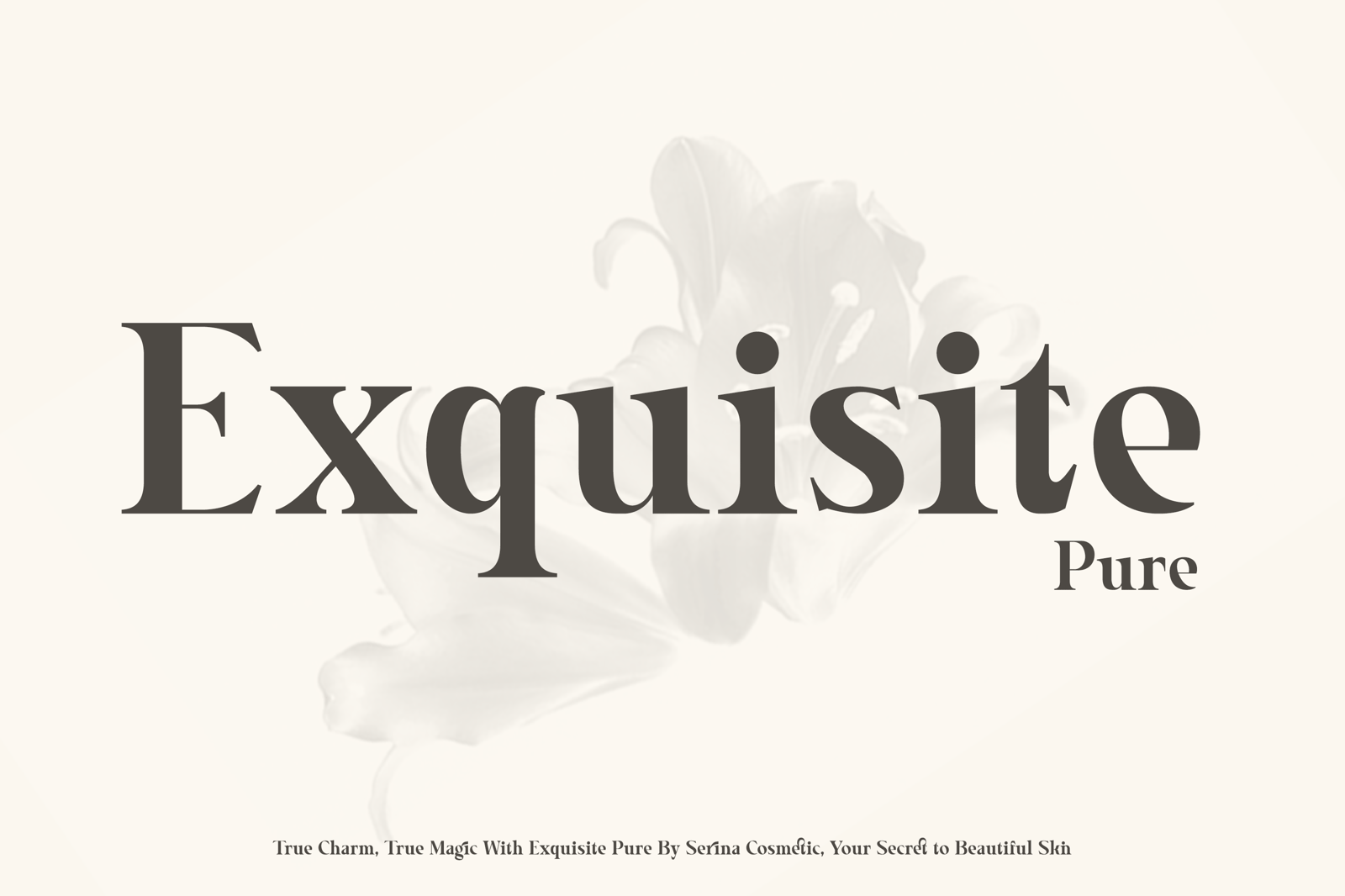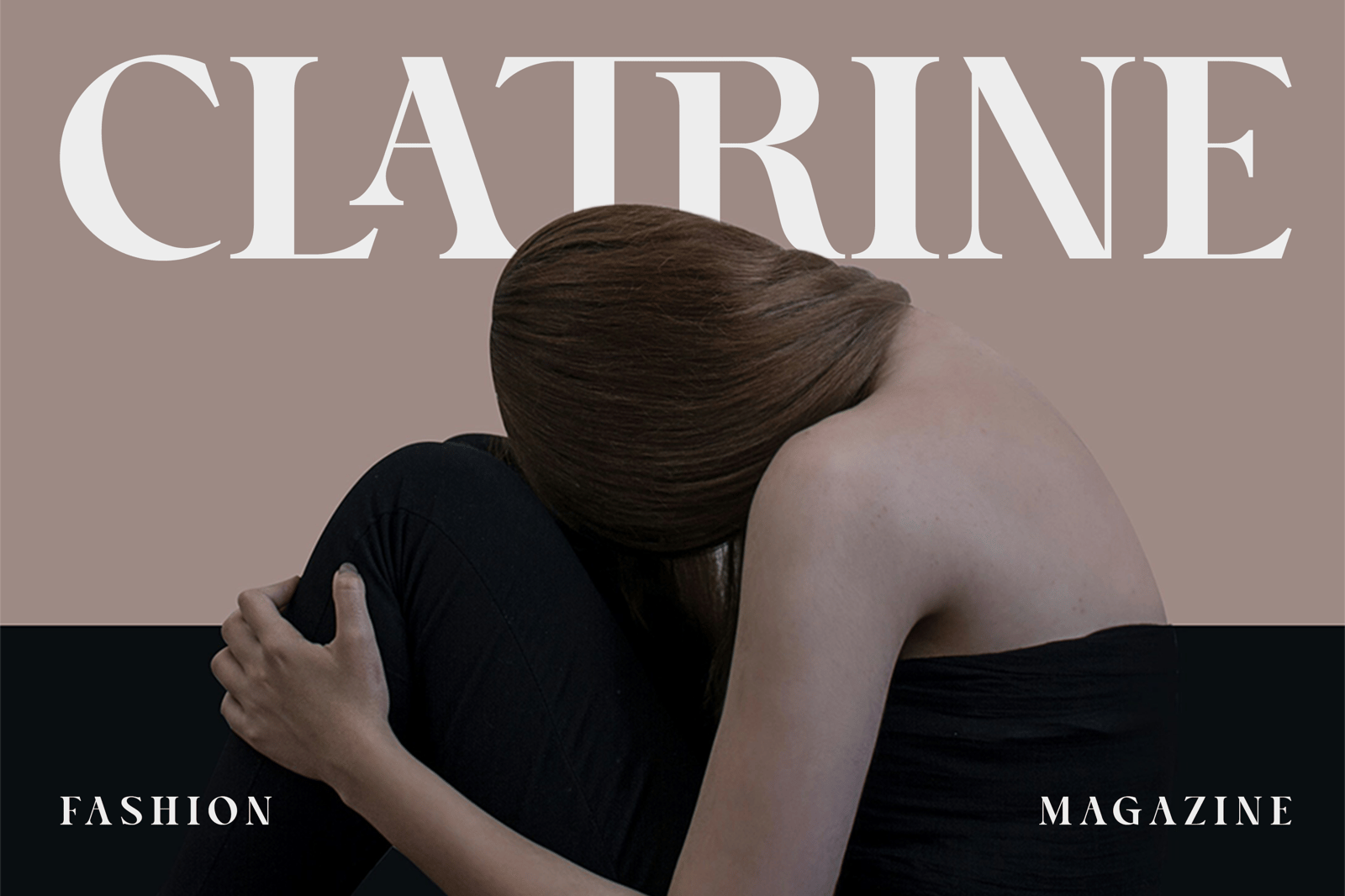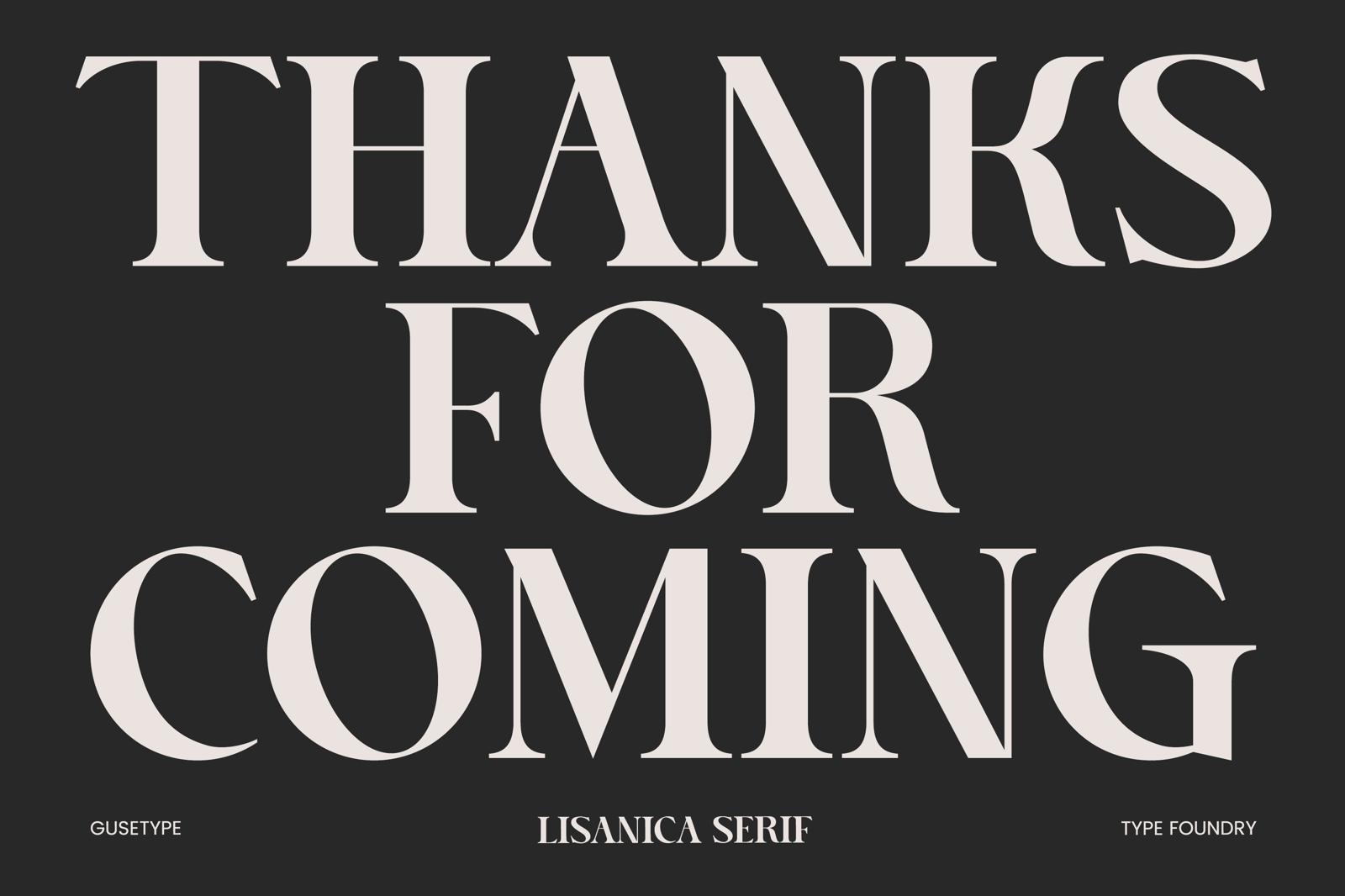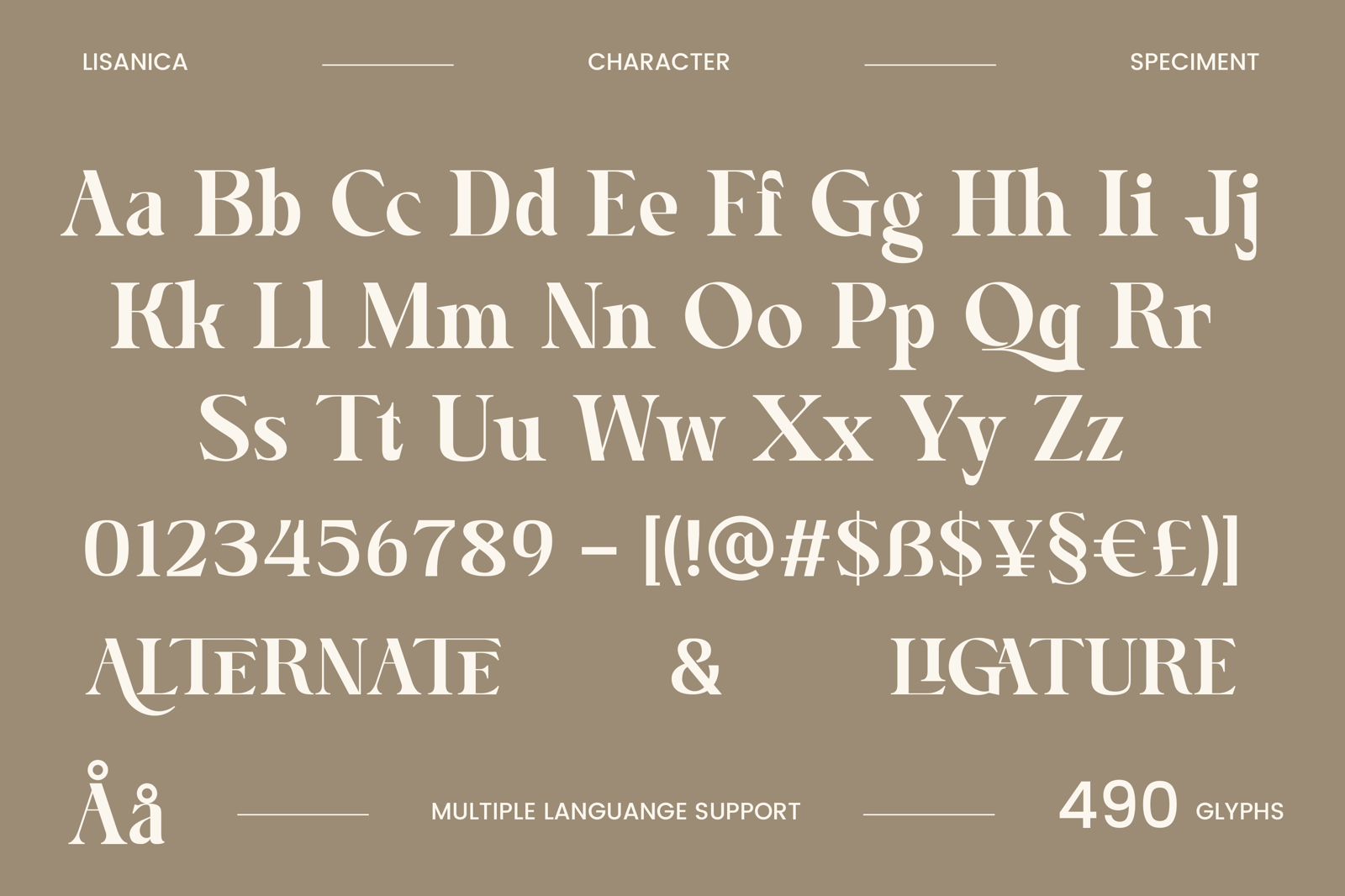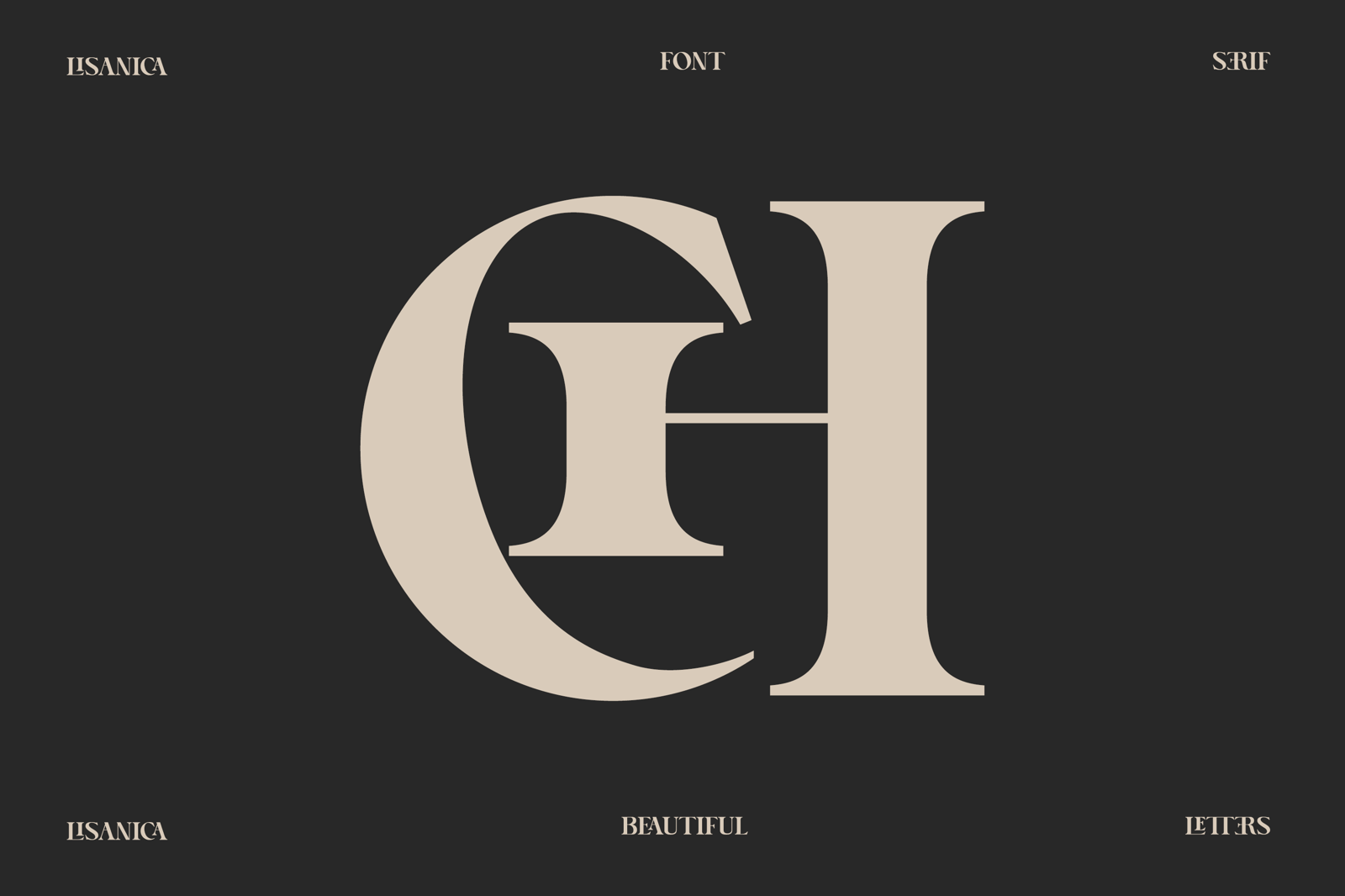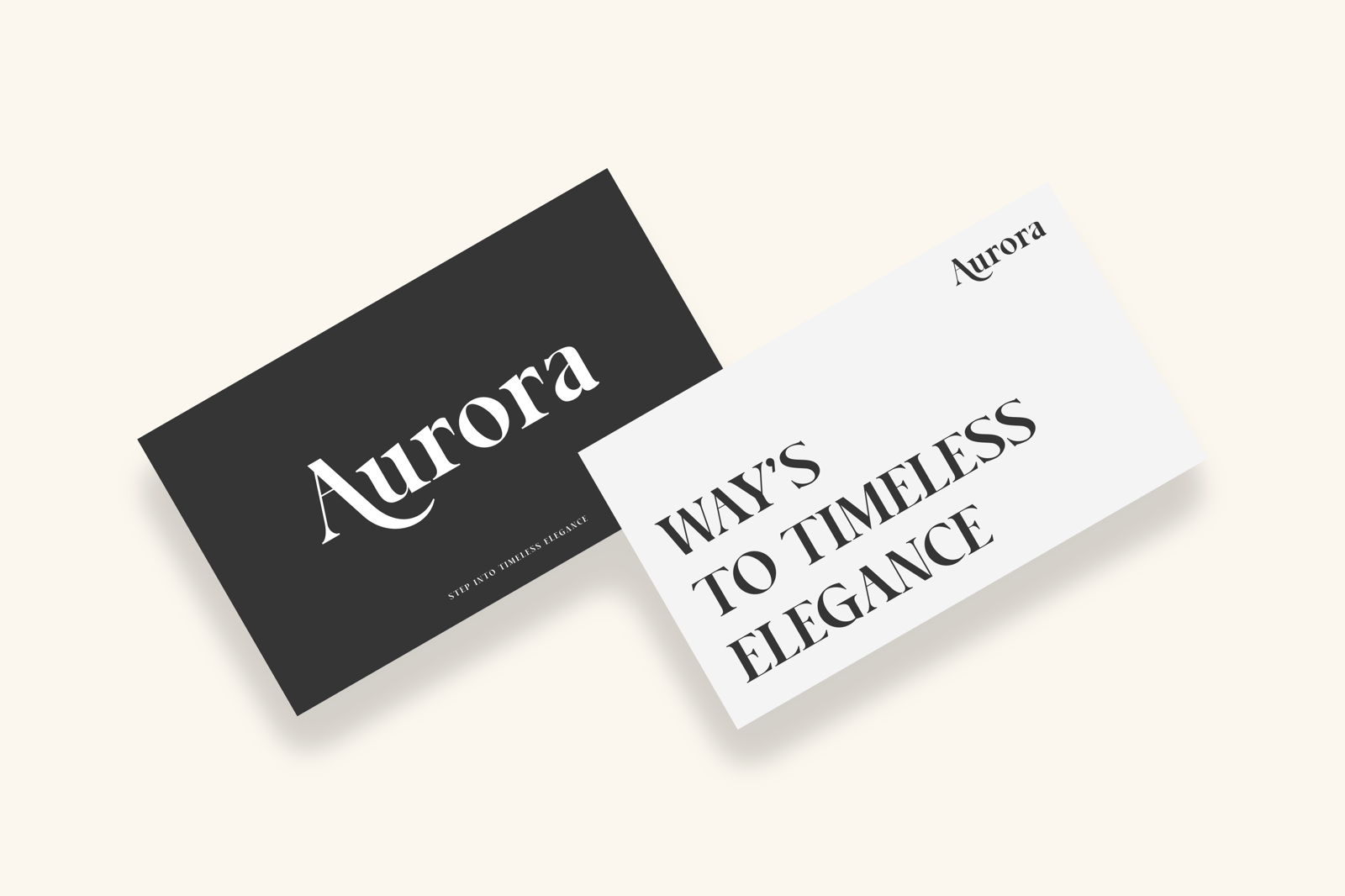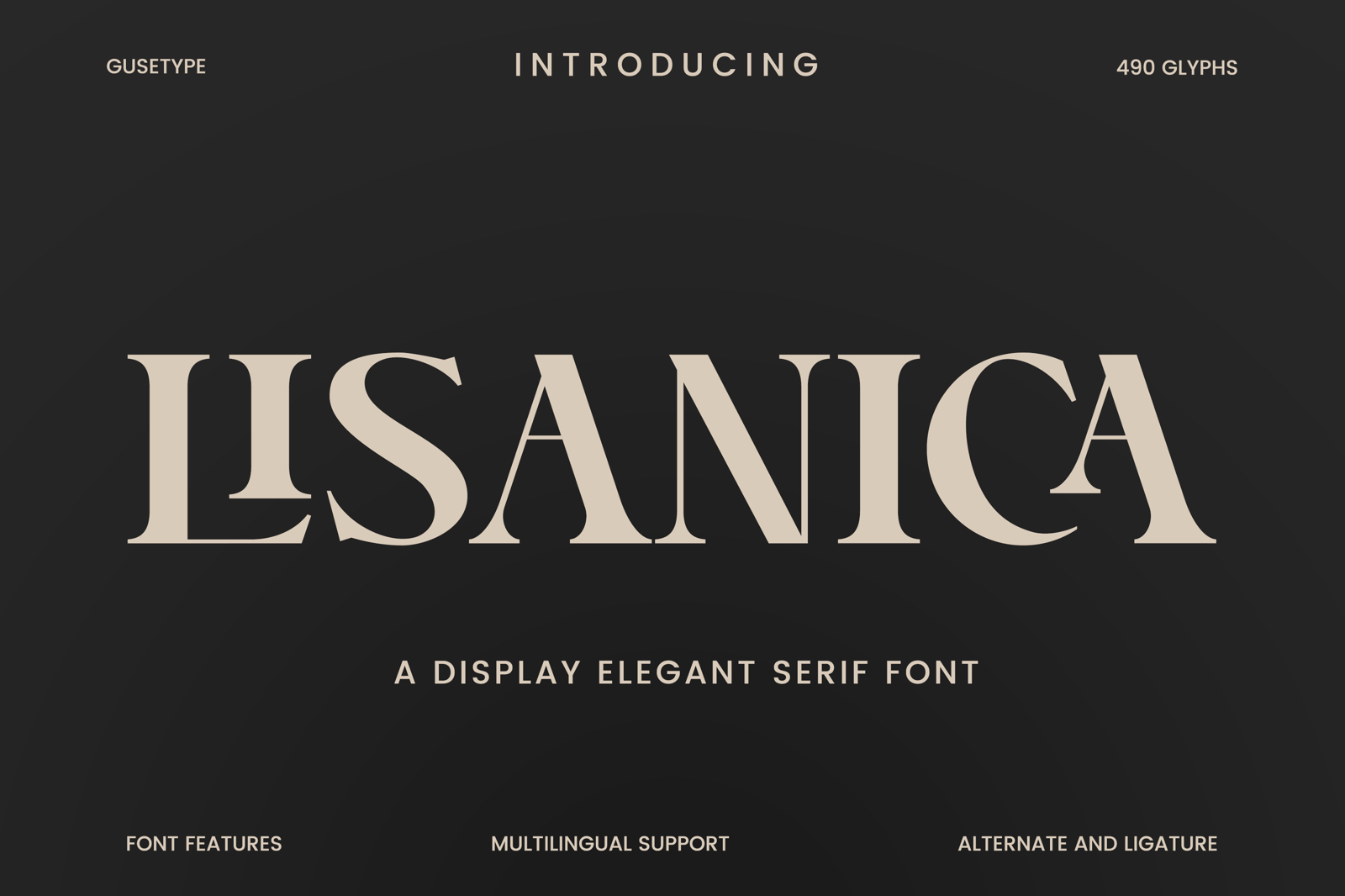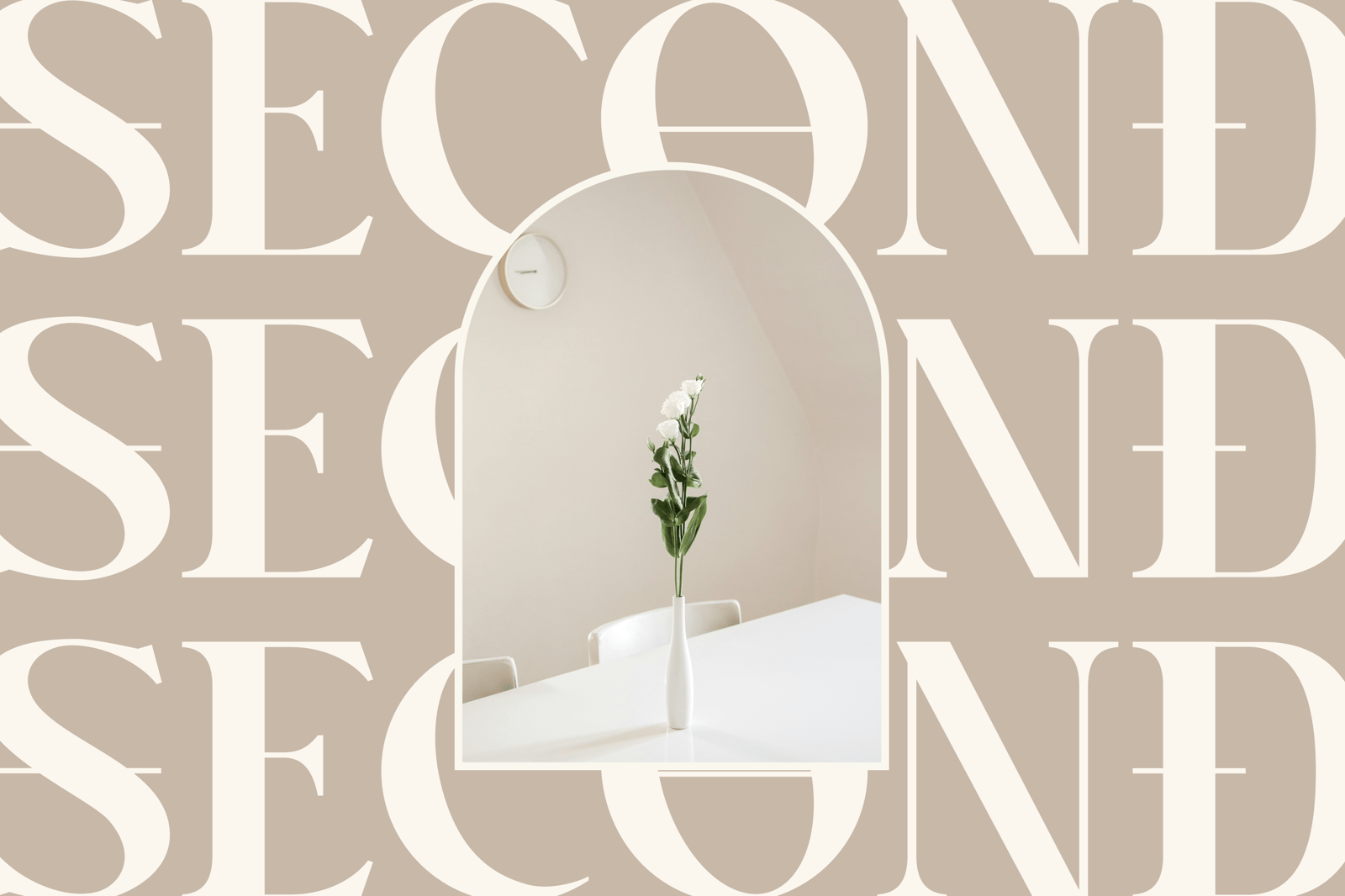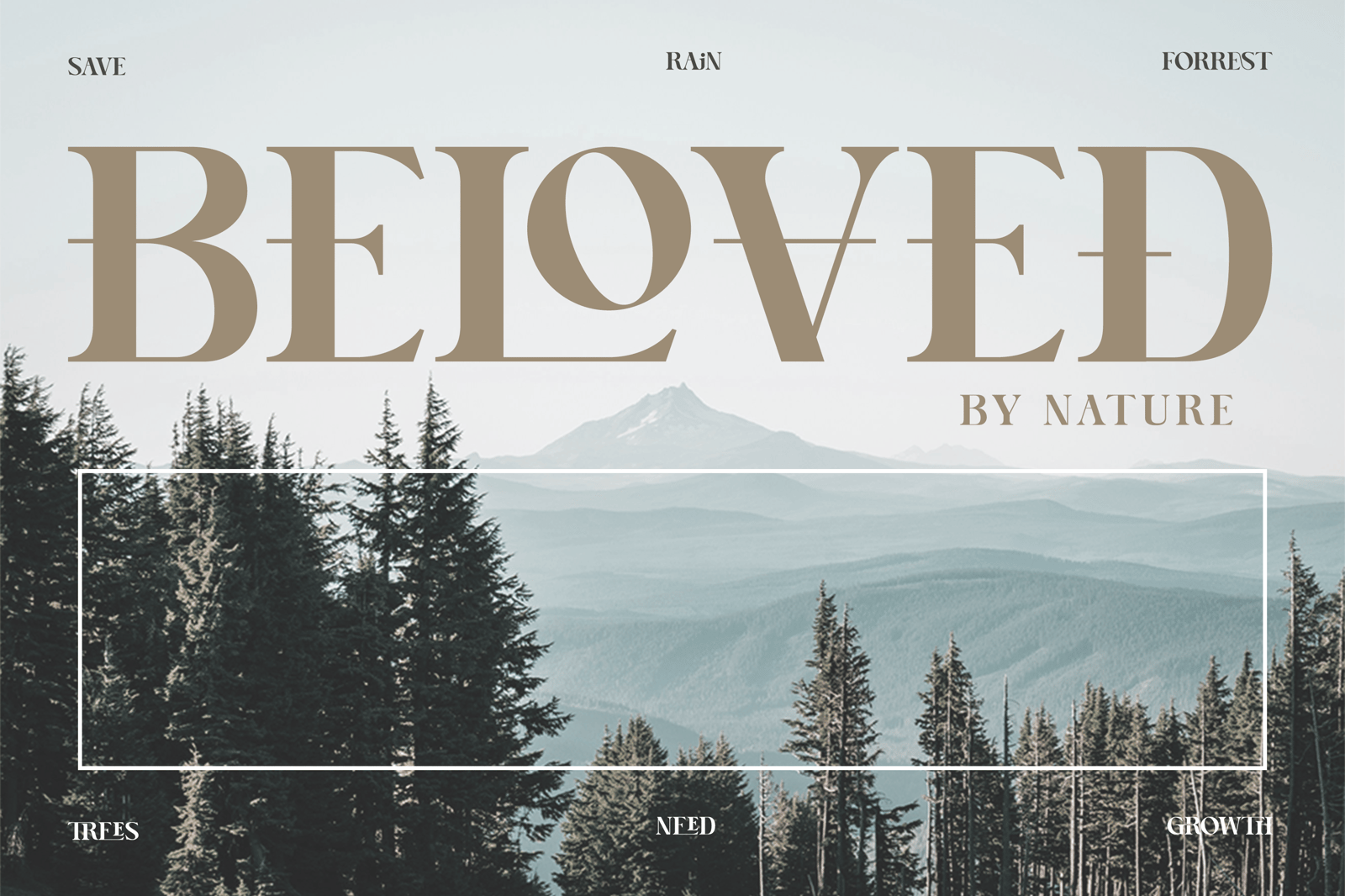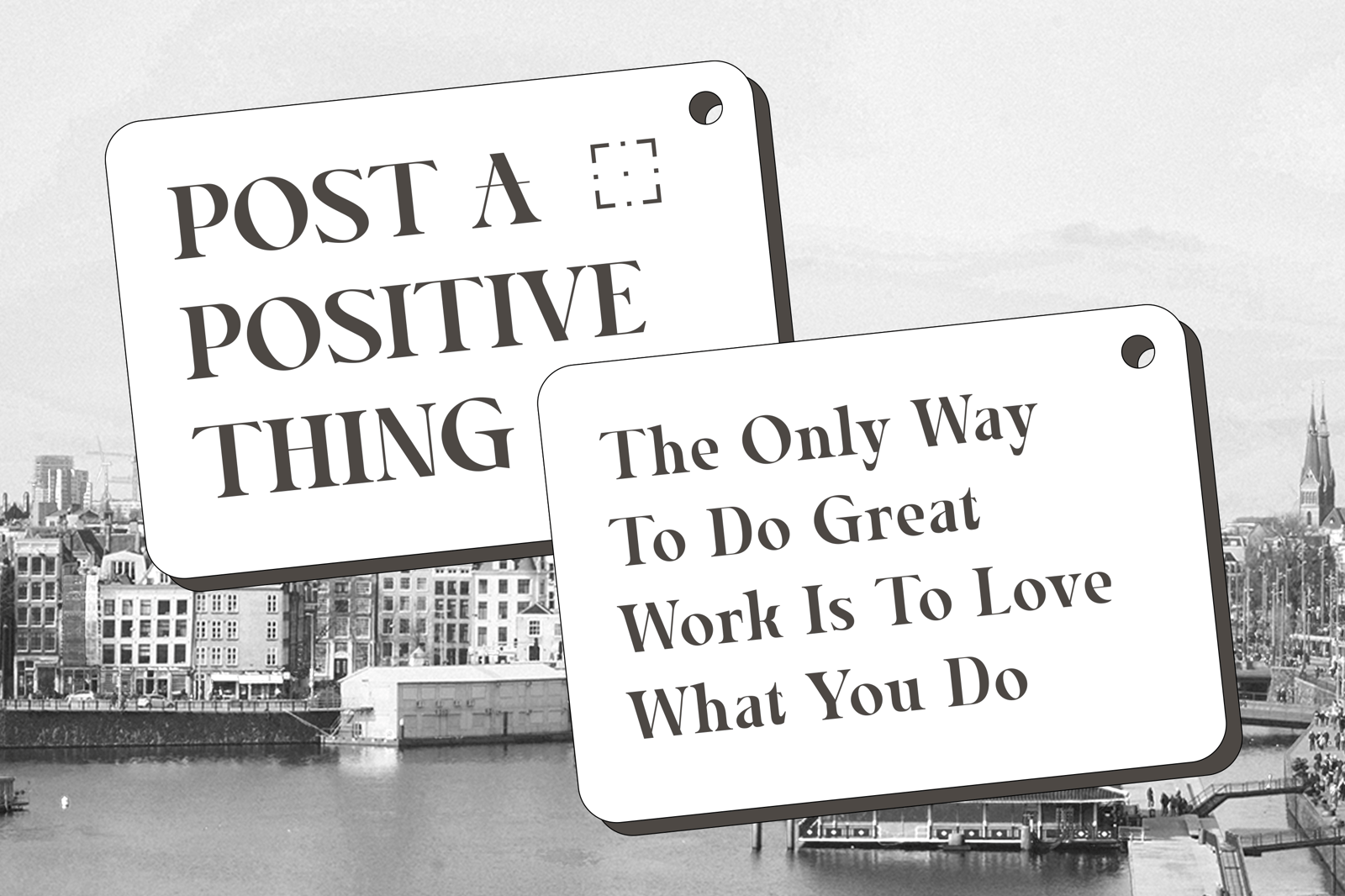
Lisanica - Display Serif Font
Lisanica is a display serif font. With its elegant lines and refined curves, making it the perfect choice for those seeking a elegant touch in their designs or project like posters, banners, magazines, logos, headlines and many more. It seamlessly blends modernity with classic charm. Lisanica have any features like multilingual supports, alternate and ligature characters, its can elevates every word it graces.